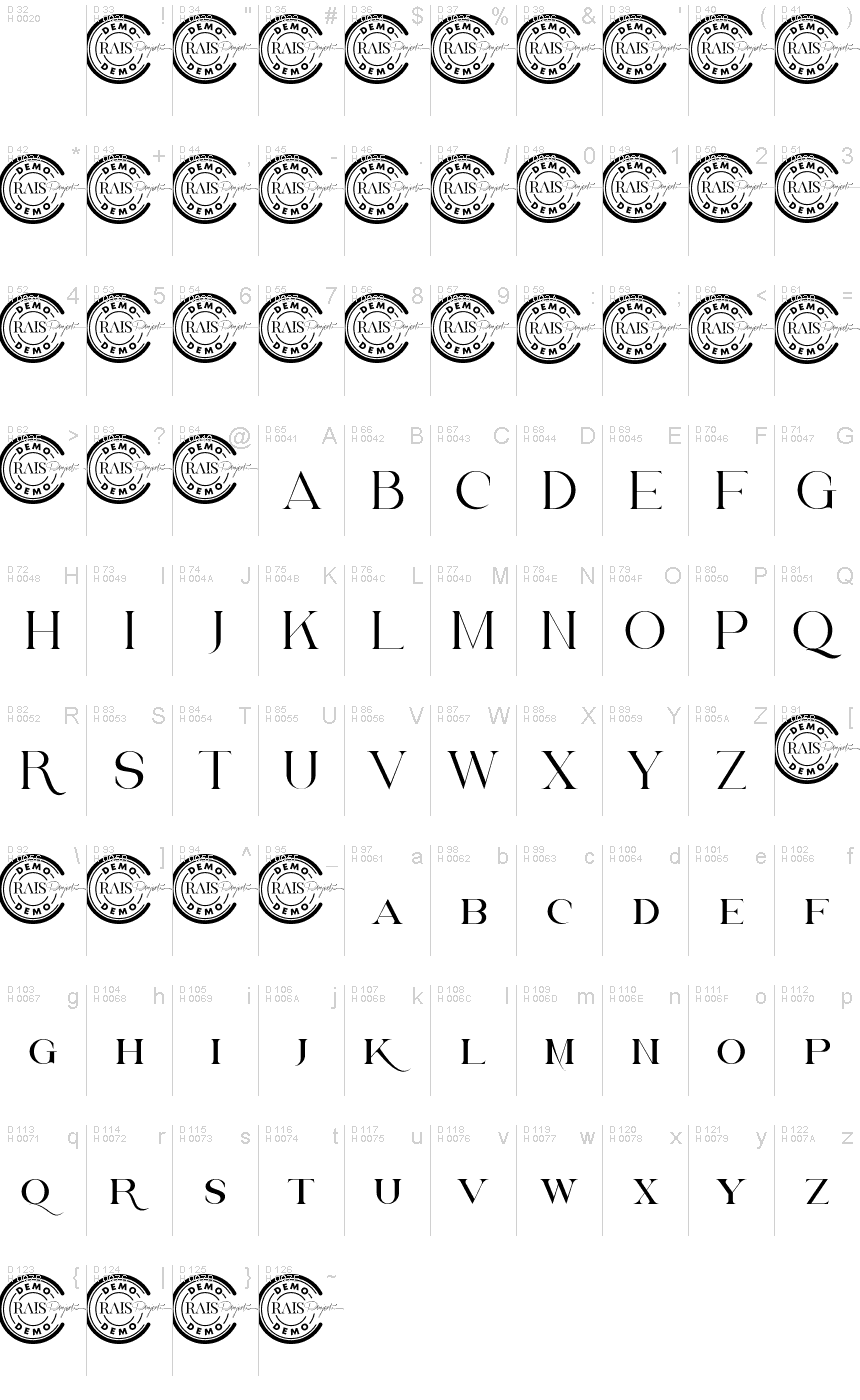
Introducing Chamberlain, a vintage serif font designed by Widiyanti & Sarah SP. It's perfect for projects requiring an elegant and timeless look, such as weddings and luxury branding.